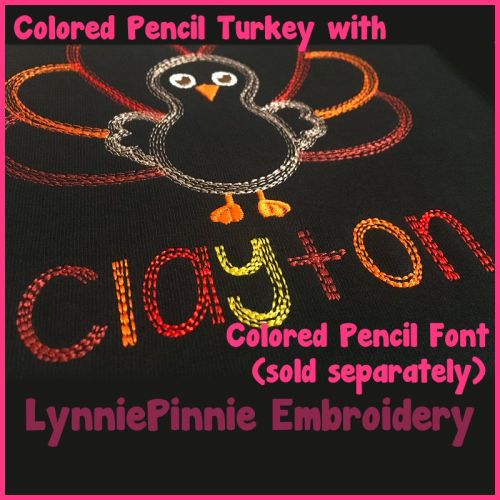
Quick Stitch Colored Pencil Sketch Triple Run Embroidery Font -- 5 sizes + BX
Uppercase, lowercase, & punctuation. 5 sizes:
Approximately 0.75 inch
Approximately 1 inch
Approximately 1.25 inch
Approximately 1.5 inch
Approximately 2 inch